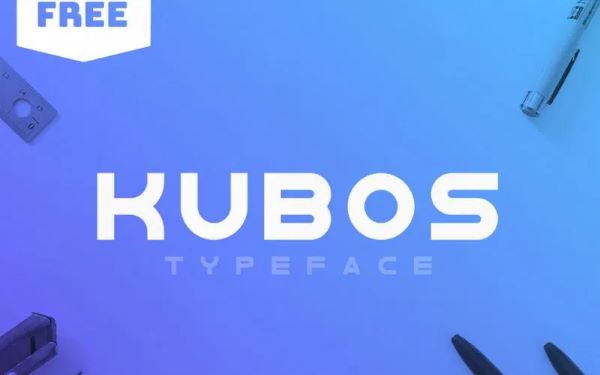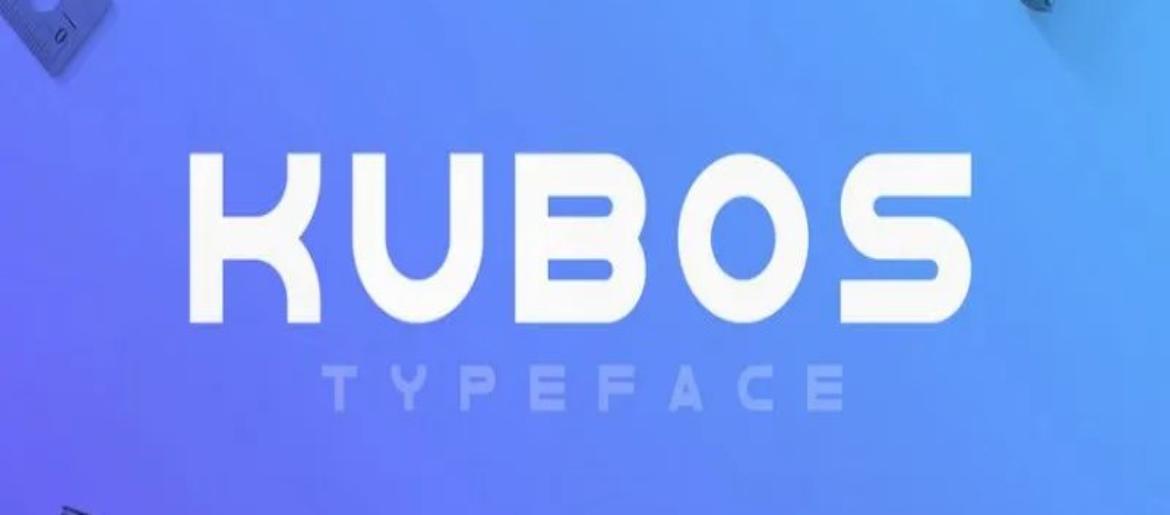
Kubos Font
Kubos by Georges Yannopoulos is a modern geometric display typeface whose name derives from the Greek word for cube — a hint at the rigorous geometric grid logic that underpins every letterform. Deceivingly simple at first glance, it rewards close attention with the kind of considered construction that speaks to a designer who took the challenge of a geometric constraint seriously. Available in Light, Regular, and Bold weights, it covers a broad range of display applications from branding and editorial headers to UI design and typographic posters. Kubos is offered under the SIL Open Font License and is free for personal and commercial use.
Kubos is a modern geometric display typeface in our free font collection, from Montreal-based designer Georges Yannopoulos — a Canadian type designer whose work reflects a deep appreciation for grid-based construction and clean, considered minimalism. Browse our full library of free fonts and discover more distinctive typefaces crafted by independent designers around the world.